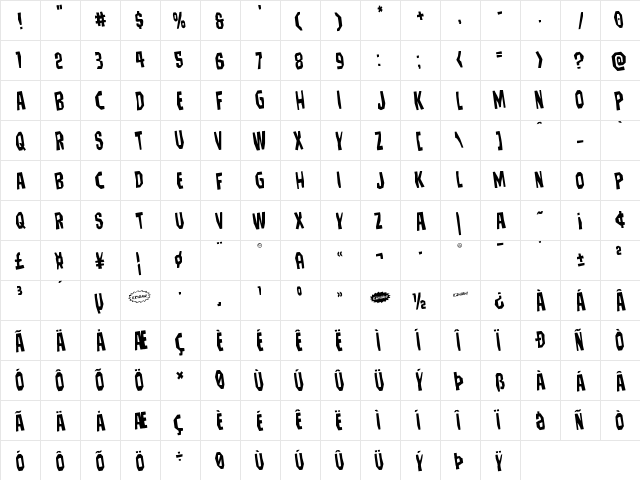
Hitchblock Rotated Regular
Design Context for Hitchblock Rotated Typeface
Hitchblock Rotated is a composed and adaptable typeface that performs quietly and consistently across a wide range of design contexts.